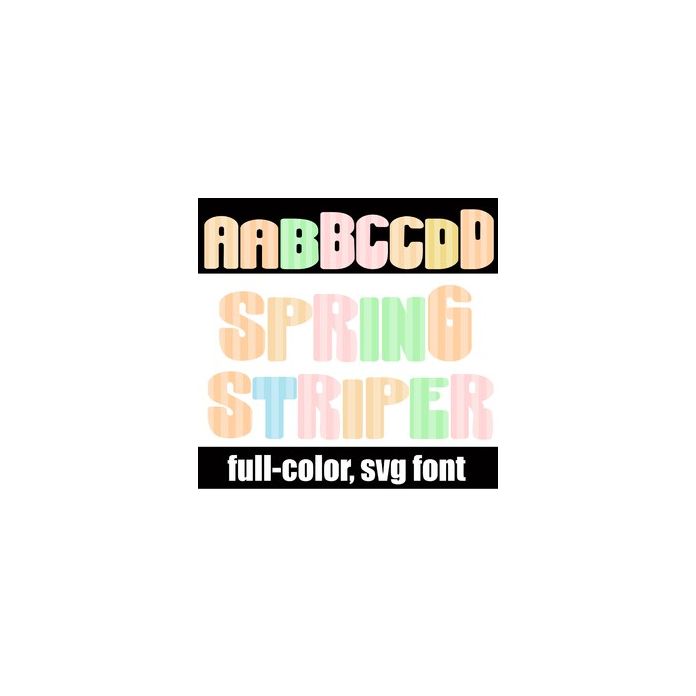
This full-color font features striped lettering in a spring-time, pastel color palette. There is an alt version you can access through your system's character map that contains additional colors of all the letters.